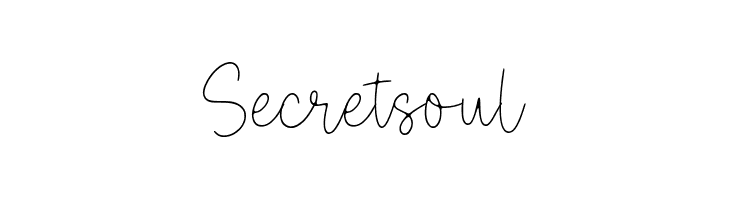
A flowing, cursive font with elegant, sweeping strokes and a handwritten appearance.
A dynamic and expressive script font with fluid, sweeping strokes.